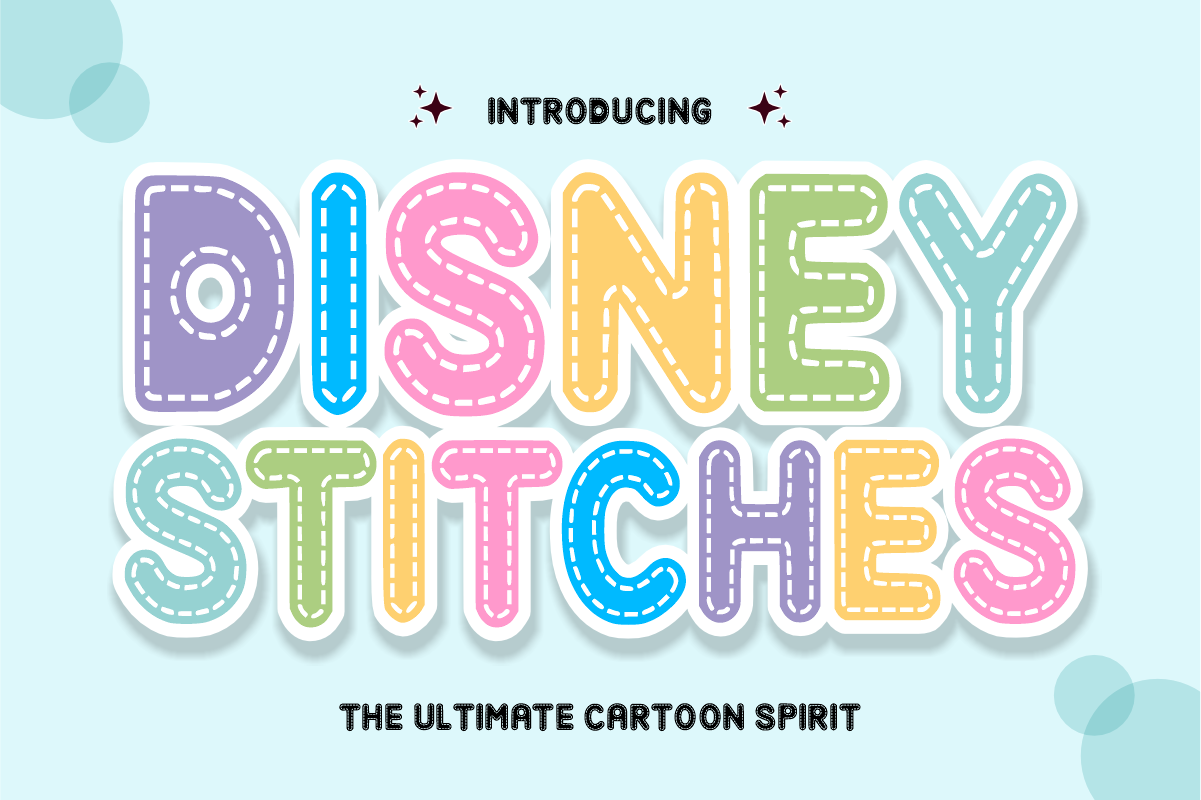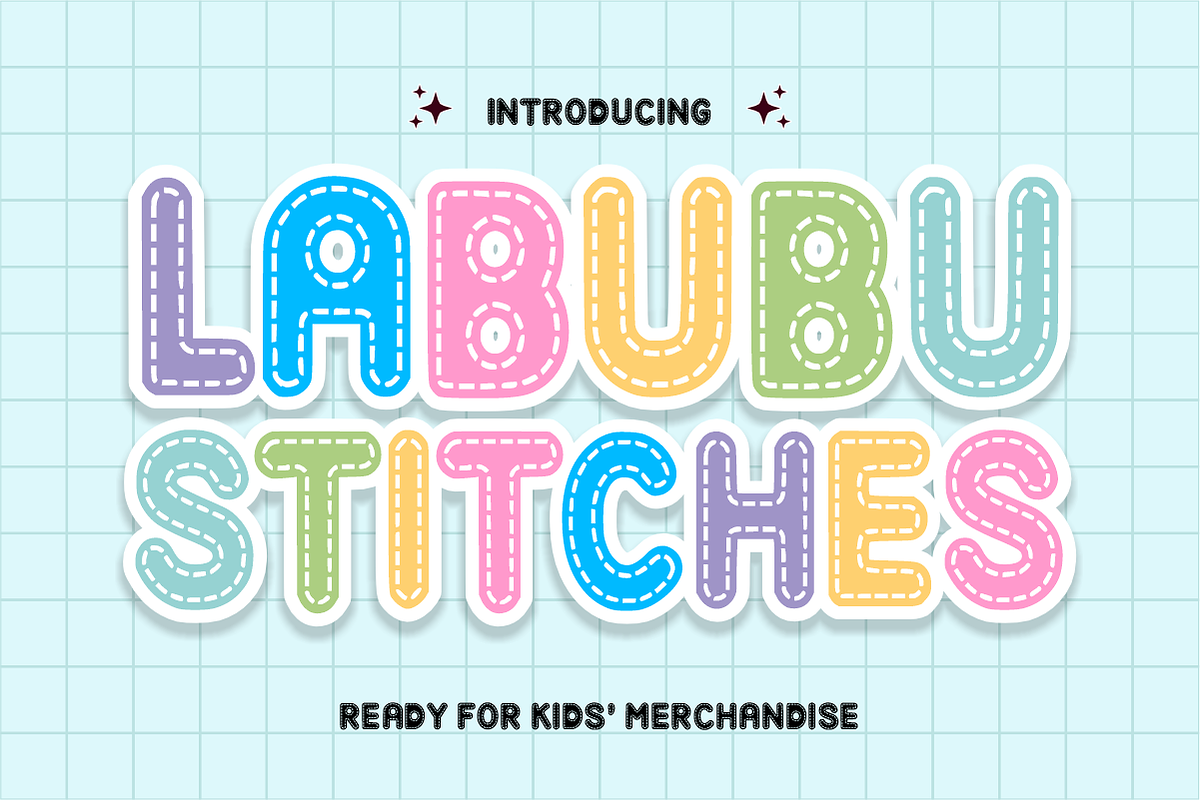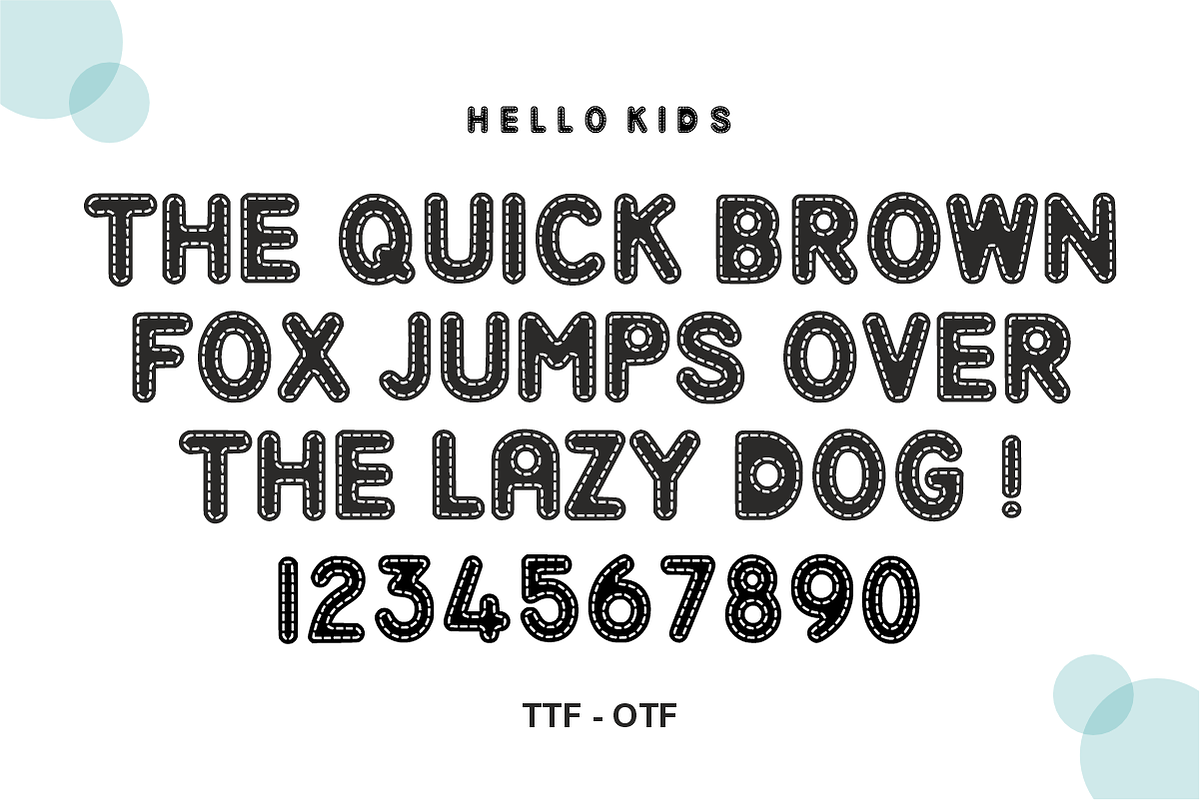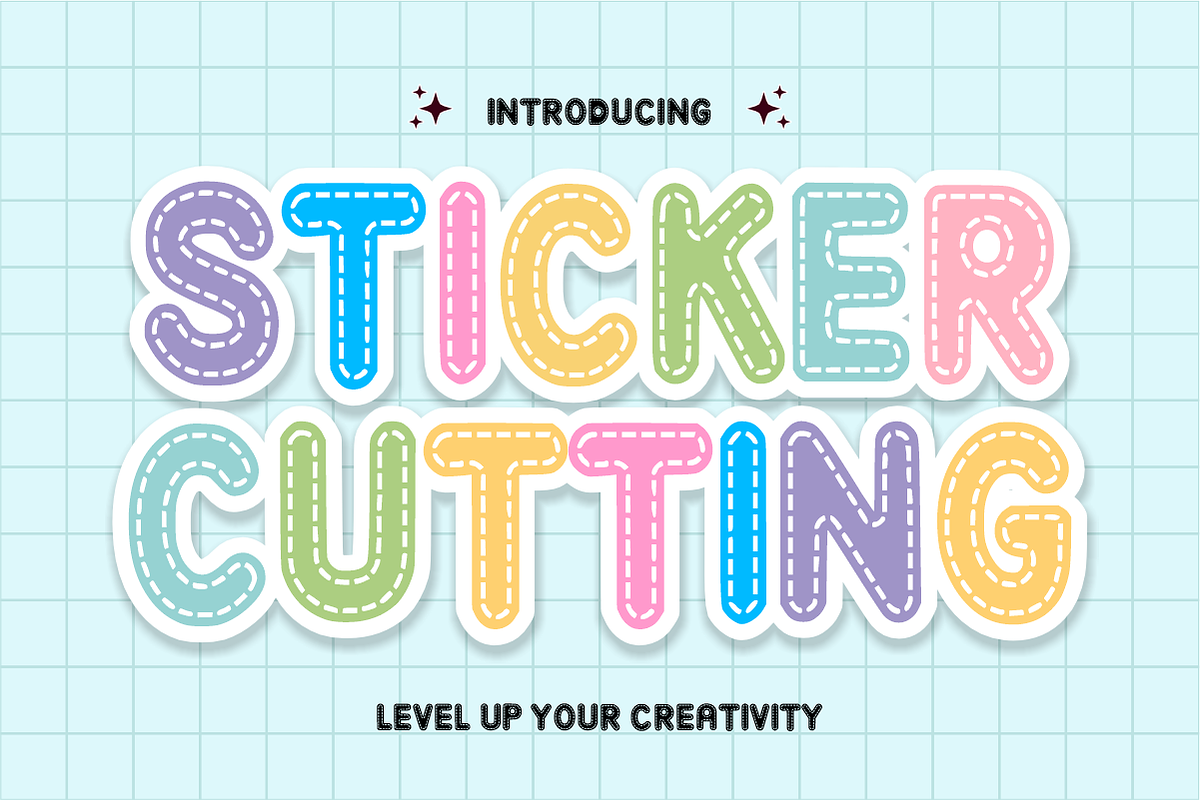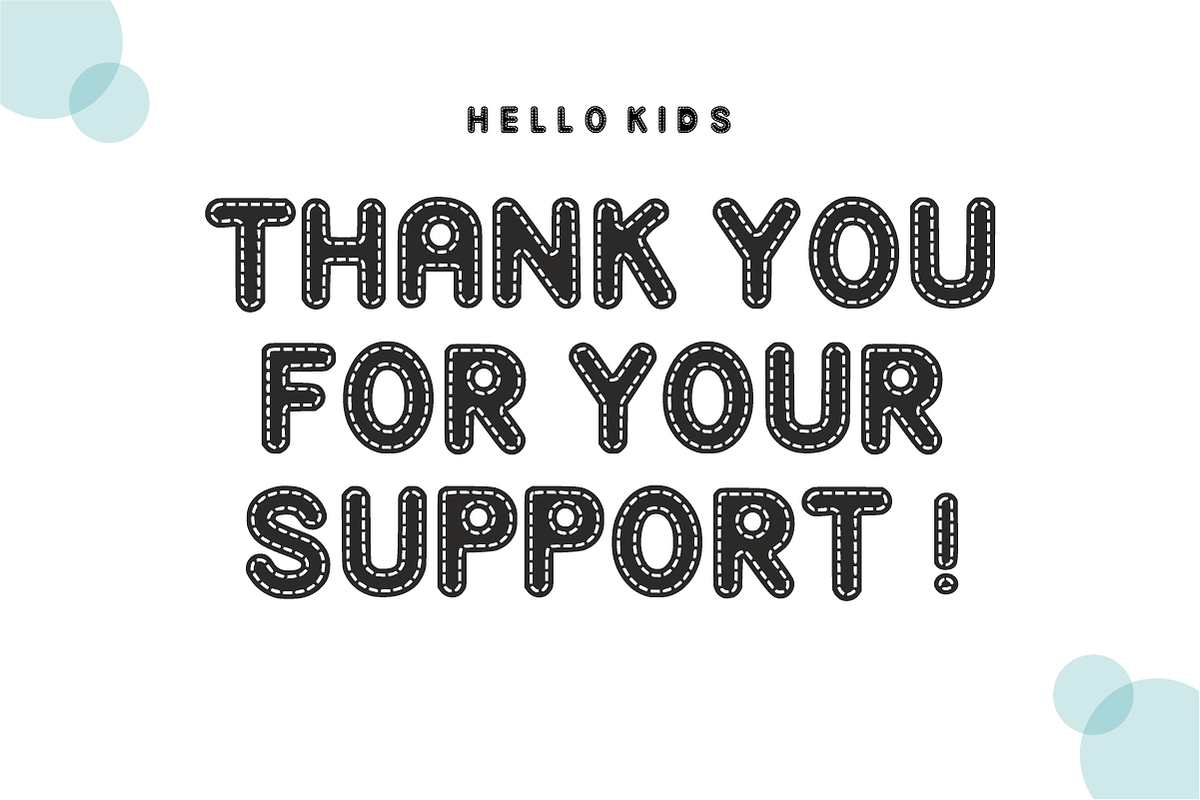
Disney Stitches – Stitched Font
Disney Stitches – Playful & Handcrafted Stitched Display Font 🧵✨
Add a touch of magic and a handmade feel to your creative projects!
Disney Stitches is a whimsical, bubbly display font featuring a unique "stitched" or dashed-line detail running through the center of each character. This playful texture gives your text an instant "embroidered" or "crafted" look, making it a standout choice for designs that need to feel friendly, energetic, and full of personality.
While the preview shows it in vibrant colors, this is not a color font—giving you the ultimate freedom to apply any color palette or gradient that fits your brand. Whether you’re designing for a nursery, a theme park adventure, or custom apparel, Disney Stitches brings a home-run of charm every time.
🌟 Why Disney Stitches is a Must-Have:
Unique Stitched Texture: The built-in dashed lines add a distinctive crafty detail that separates your work from standard bold fonts.
Perfect for Layering: Easily add an outline or shadow (as seen in our previews) to create a high-impact, 3D "sticker" effect.
Highly Versatile: Its bold, rounded silhouette ensures maximum legibility, even on busy backgrounds.
Craft-Friendly: The clean outlines are perfect for use with cutting machines like Cricut and Silhouette.
🎨 Perfect For:
👕 Kids & Baby Apparel: Design adorable t-shirts, hoodies, and custom onesies.
🎂 Birthday & Party Decor: Create vibrant banners, invitations, and cake toppers.
🖍️ Educational Resources: Ideal for classroom posters, book covers, and playful worksheets.
📸 Social Media & YouTube: Make your thumbnails and Instagram stories pop with a friendly, cartoonish vibe.
🏷️ Stickers & Branding: Perfect for toy packaging, logo designs for kids' clubs, and fun vinyl decals.
Uppercase Letters (A-Z): Expressive, bold characters with consistent stitch detailing.